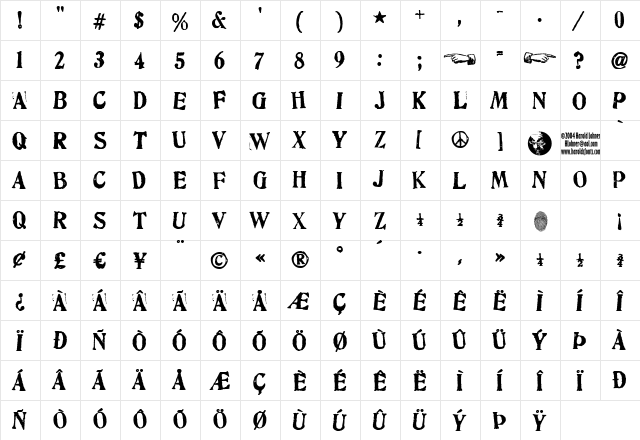
Artistamp Wet Jumbled Regular
Design Context for Artistamp Wet Jumbled Typeface
Artistamp Wet Jumbled has the rough pragmatism of spray-painted stencil signage, adding a raw, street-level authenticity to designs.
Ideal for industrial branding, streetwear, military-adjacent aesthetics, and urban signage projects.
Pro Tip: Pair Artistamp Wet Jumbled with raw, utilitarian design elements — exposed concrete textures, flat colour, and minimal ornamentation suit it well.